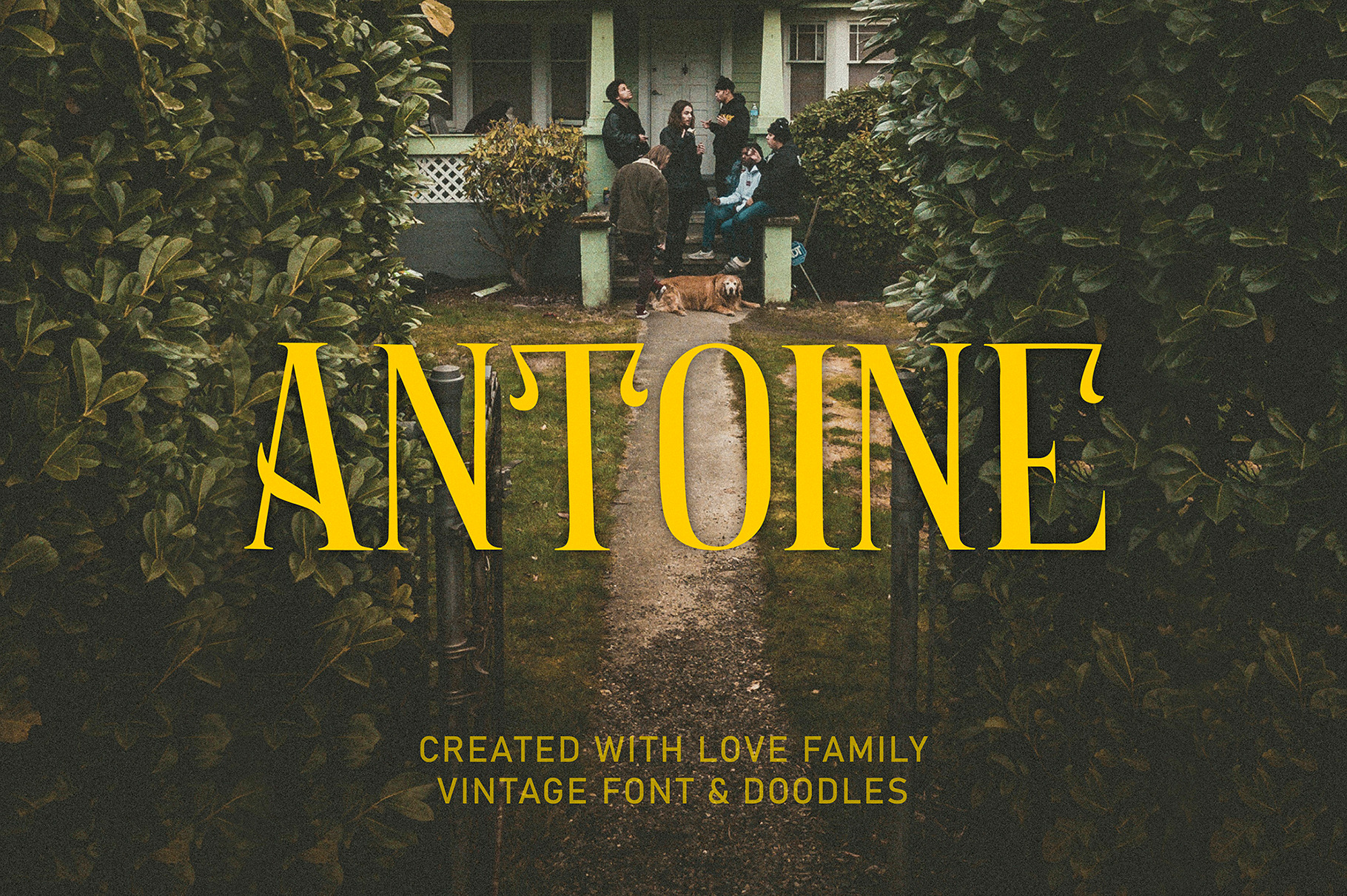
Antoine Typeface
Introducing Antoine — is a vintage retro display typeface. The three font combinations I launched are very compatible if for the victorian classic design concept. As for if the font was worn by itself, without combinations are also brave!! In addition to many get unique character, luxury, brave and elegant. You also have a collection ornament, very suitable if in the gradient. This font is also very easy to use with other design programs or with out design program.
Antoine Typeface is perfect for beverage label design project. coffee label. logotype design, badges, classic wedding concept. victorian design concept and so on. gig poster, letterhead, droop cap, titles, and any artworks. Now it’s your time to go crazy and explore the uniqueness of this typeface!!